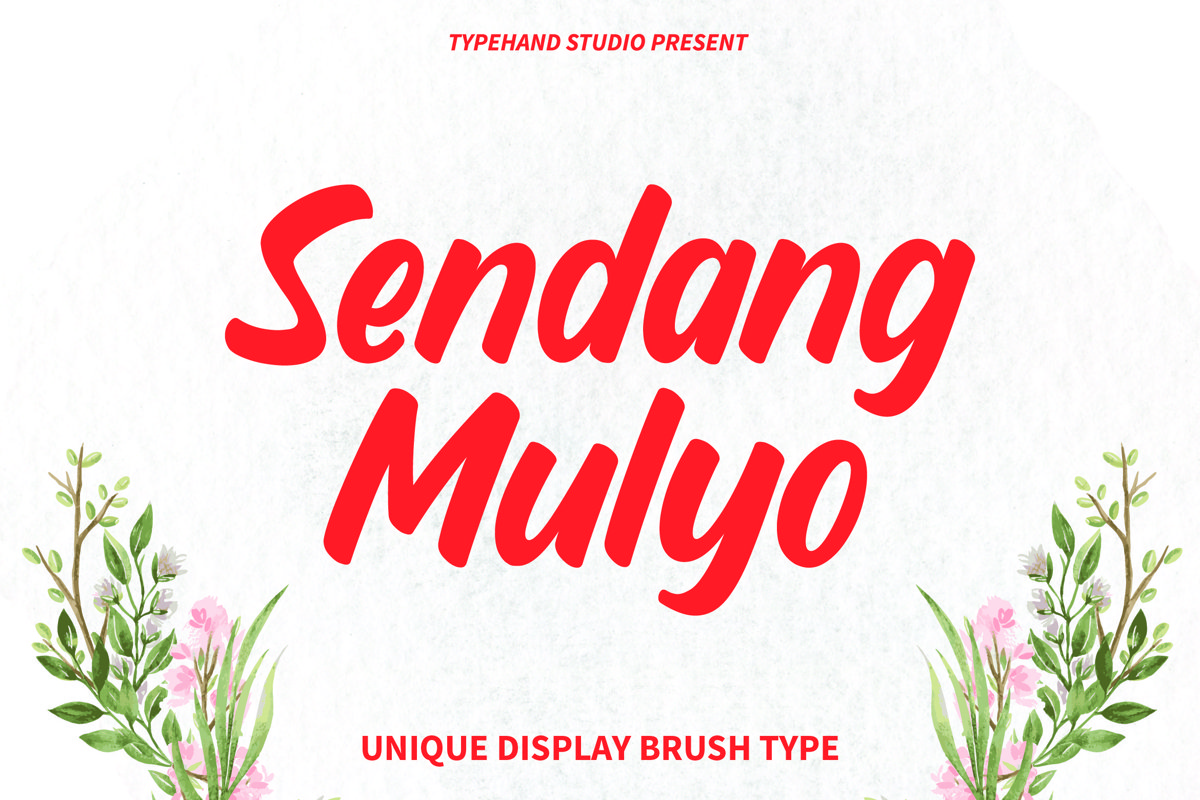
Sendang Mulyo - Brush Display Font
Sendang Mulyo
Sendang Mulyo is display brush type which perfect for design and wedding events.Sendang Mulyo is perfect for branding projects, logo, wedding designs, social media posts, advertisements, product packaging, product designs, label, photography, watermark, invitation, stationery and any projects that need brush taste.